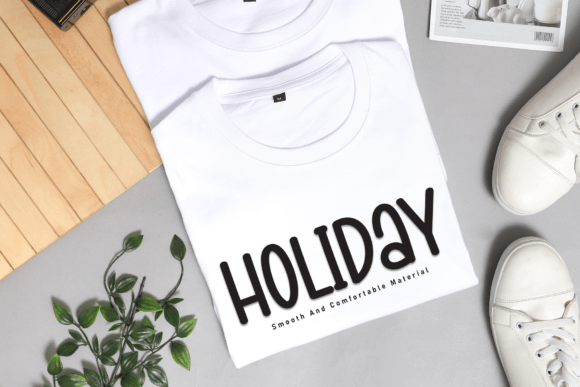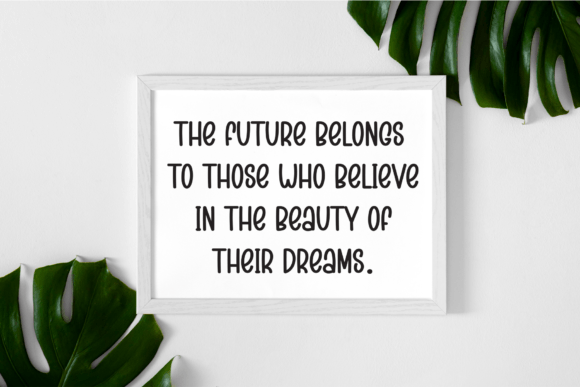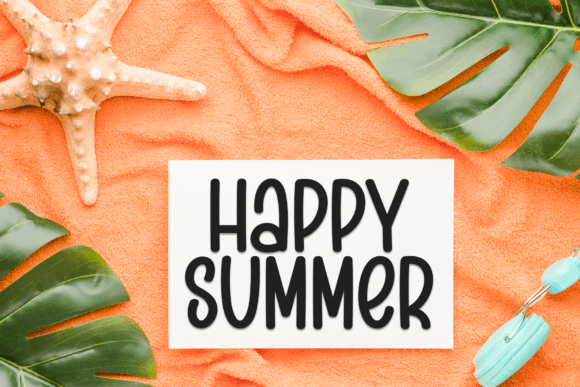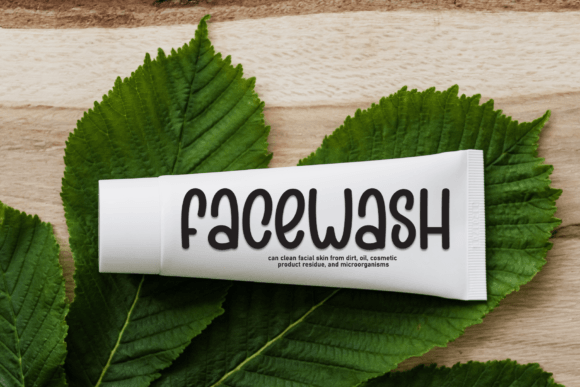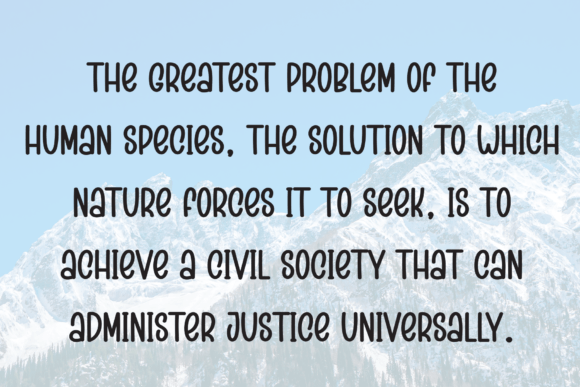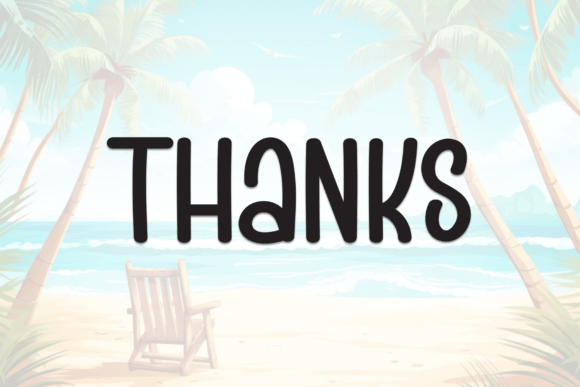
Introducing Beach Vibes Font: The Ultimate Choice for Coastal-Inspired Designs
Are you a designer or crafter looking for a font that captures the essence of the beach? Look no further than Beach Vibes Font, a lovely and timeless handwritten font that’s perfect for creating eye-catching logos, branding, and quotes. With its unique and beautiful touch, Beach Vibes Font is sure to make your design come alive!
The Charm of Beach Vibes Font
Beach Vibes Font is a handwritten font that’s been carefully crafted to evoke the carefree and laid-back vibe of the beach. Every letter has a unique and beautiful touch, making it perfect for designs that require a personal and human touch. Whether you’re creating a logo, branding materials, or quotes, Beach Vibes Font is the perfect choice.
Key Features of Beach Vibes Font
- Unique and Beautiful Touch: Every letter in Beach Vibes Font has a unique and beautiful touch, making it perfect for designs that require a personal and human touch.
- Timeless Design: Beach Vibes Font has a timeless design that’s perfect for creating designs that won’t go out of style.
- Handwritten Style: Beach Vibes Font is a handwritten font that’s perfect for creating designs that require a personal and human touch.
- Perfect for Logos and Branding: Beach Vibes Font is perfect for creating eye-catching logos and branding materials that will make your business stand out.
Why Choose Beach Vibes Font?
There are many reasons why Beach Vibes Font is the perfect choice for designers and crafters. Here are just a few:
- Easy to Read: Beach Vibes Font is easy to read, making it perfect for designs that require a clear and concise message.
- Versatile: Beach Vibes Font is versatile and can be used for a wide range of designs, from logos and branding to quotes and more.
- High-Quality: Beach Vibes Font is a high-quality font that’s been carefully crafted to ensure that it’s perfect for professional designs.
Tips and Tricks for Using Beach Vibes Font
Here are a few tips and tricks for using Beach Vibes Font:
- Use it for Headings: Beach Vibes Font is perfect for headings and titles. Use it to add a touch of personality to your designs.
- Pair it with Other Fonts: Beach Vibes Font can be paired with other fonts to create a unique and interesting design.
- Experiment with Colors: Beach Vibes Font looks great in a variety of colors. Experiment with different colors to find the one that works best for your design.
Beach Vibes Font is a lovely and timeless handwritten font that’s perfect for creating eye-catching logos, branding, and quotes. With its unique and beautiful touch, Beach Vibes Font is sure to make your design come alive! Whether you’re a designer or crafter, Beach Vibes Font is the perfect choice for anyone looking to add a touch of coastal charm to their designs.